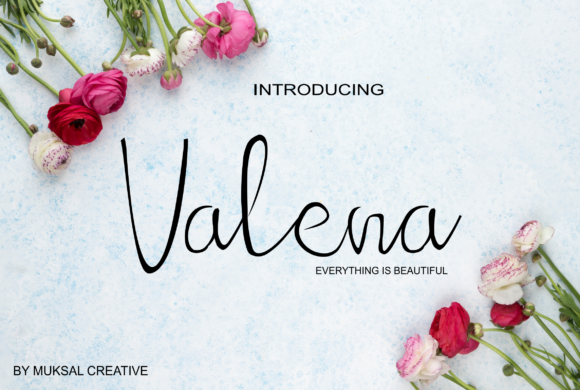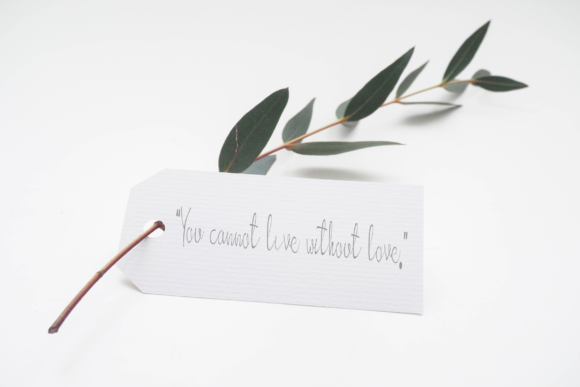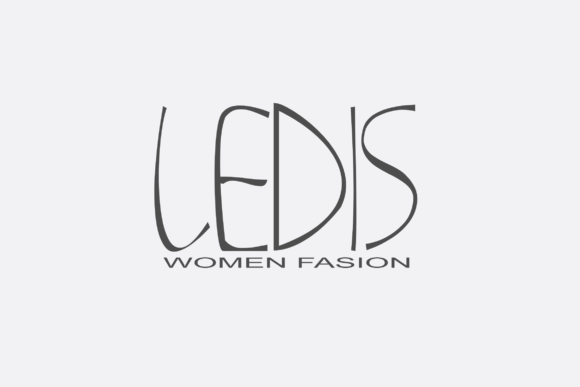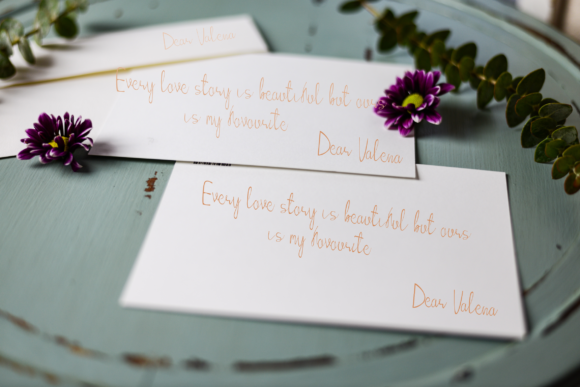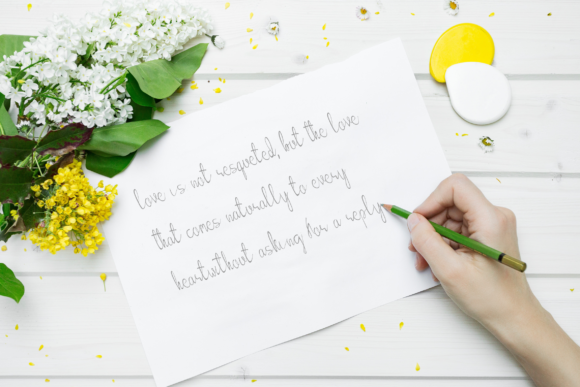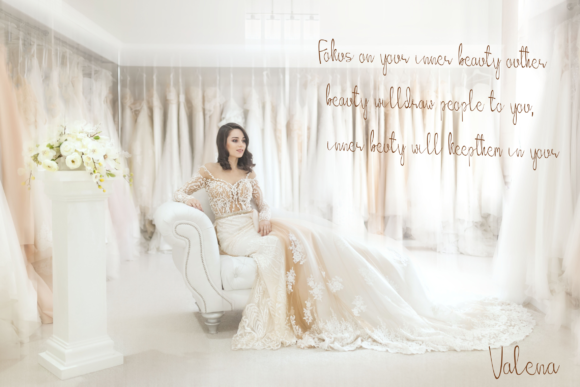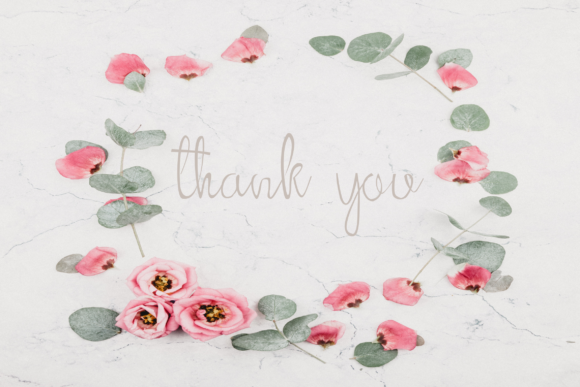
Valena Font
About Valena Font
Valena is a romantic and light handwritten font that will put a lovely spin on any design project. Fall in love with its bold swashes!